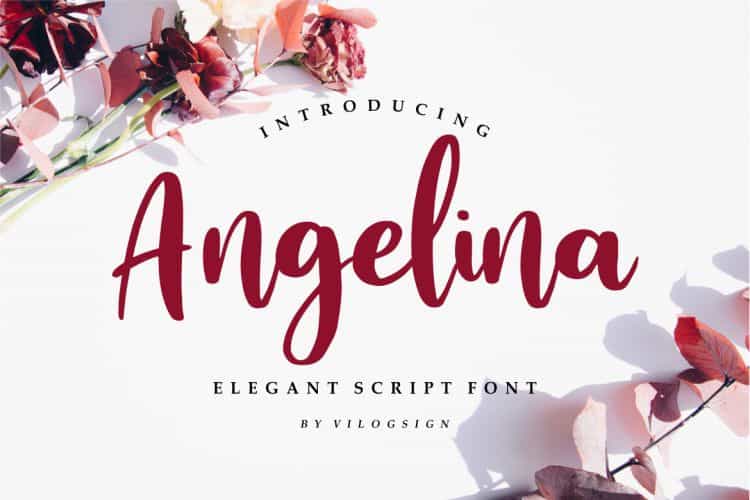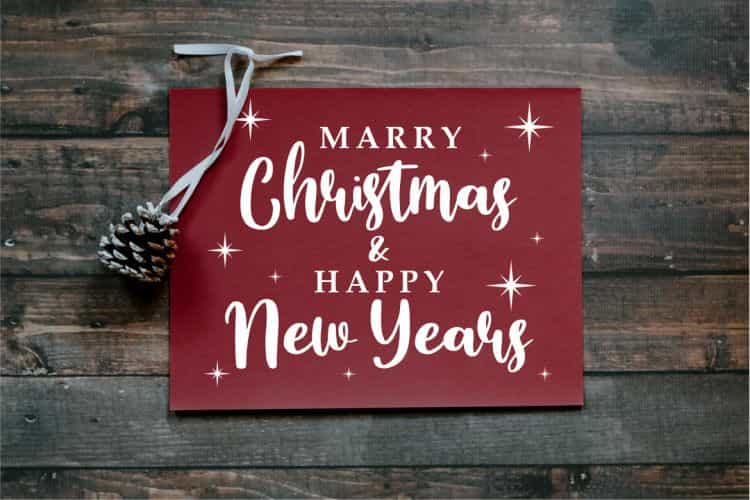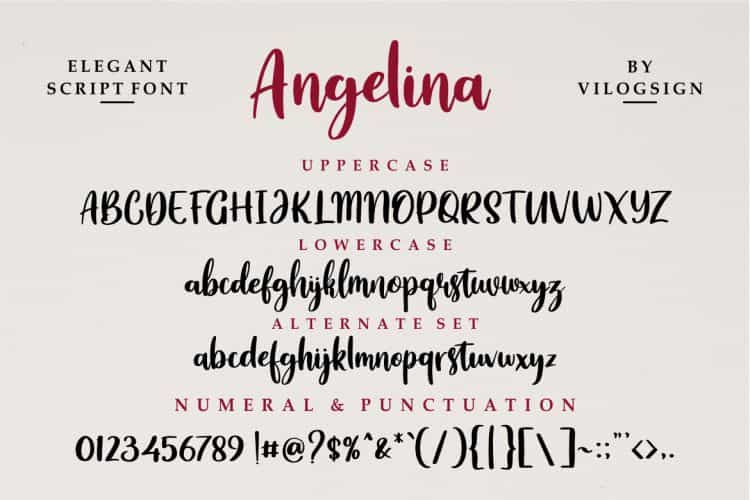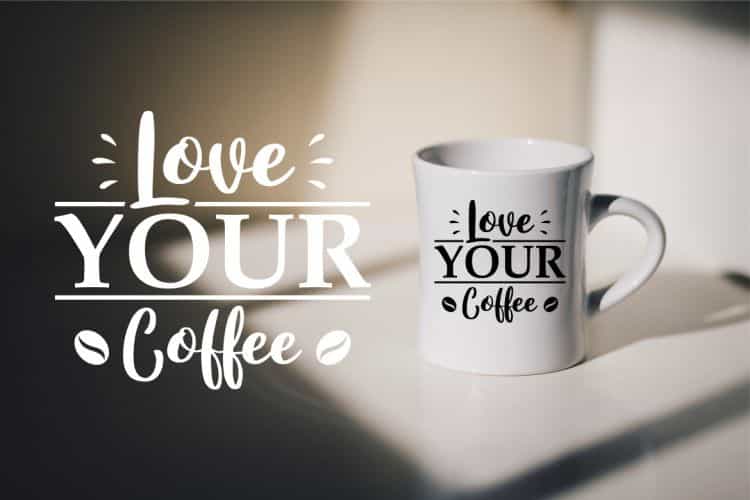
Introducing Angelina Font. This font so beautiful and cute with natural touch. This font is really match for your project such logo, quotes, magazine, fashion, branding, and many others.